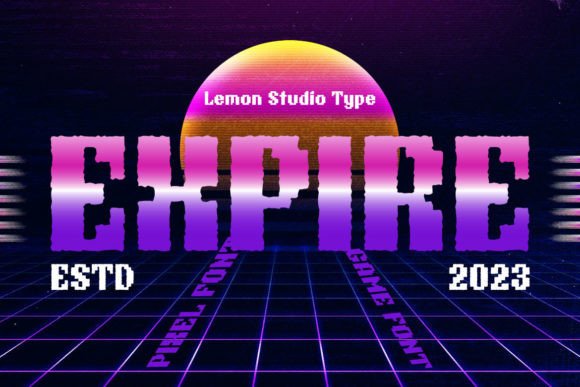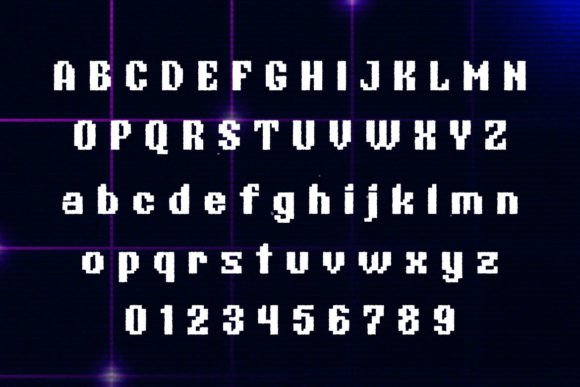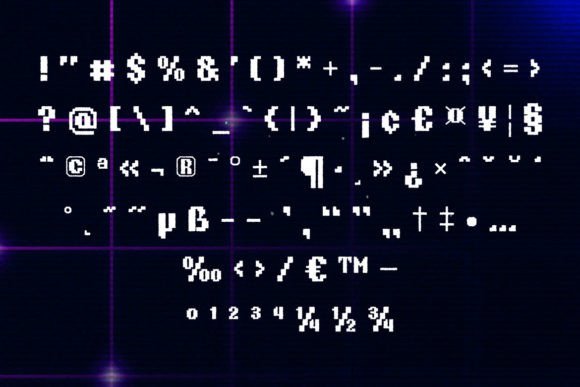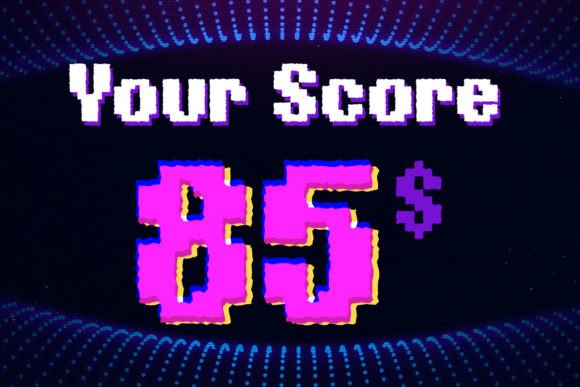
Expire Font: Retro Pixel Font for Gaming & Creative Designs
About the Expire Font
Get ready to be inspired by Expire Font, a fresh and dynamic typeface for modern creators. Expire is a pixel font. This font was inspired by and for gaming font needs in particular, but you can also use it for your other design needs. Ennjoy this cool pixel font!
Expire’s bold, retro aesthetic makes it ideal for headlines, game interfaces, logos for tech or gaming brands, and short, impactful phrases on posters or packaging. Its pixelated nature, however, limits its readability in large blocks of text; avoid using it for body copy or lengthy paragraphs. It’s not suitable for UI elements requiring high legibility.
The font’s strong personality pairs well with clean sans-serif fonts like Helvetica or Futura for a balanced contrast, or with a geometric sans-serif for a more futuristic feel. For a playful juxtaposition, consider pairing it with a rounded script font. Avoid pairing it with delicate or highly ornamented fonts, which would clash with its blocky structure.
Expire projects a confident, nostalgic, and slightly rebellious personality. It works best for brands aiming for a retro-futuristic, energetic, or playful image, particularly in the gaming, technology, or entertainment sectors.